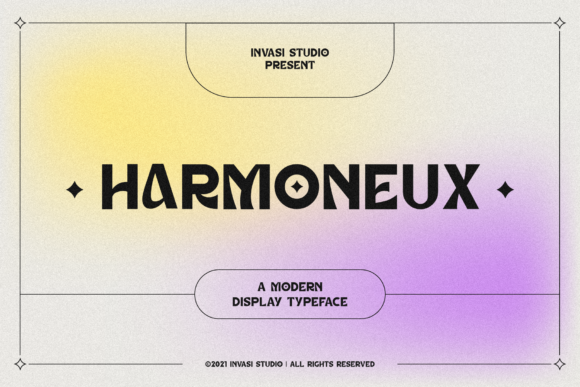
You know that feeling when you’re staring at a blank page, trying to bring your vision to life? The cursor blinks, taunting you, as you search for the perfect font to set the tone for your project. It’s in these moments that the right font can make all the difference. Enter the Harmoneux Font – a cool, modern, and assertive display font that’s about to become your new best friend.
This versatile font is designed to elevate any creation, whether you’re working on a bold marketing campaign, a sleek website, or a captivating poster. The Harmoneux Font has the power to convey confidence, creativity, and style, making it a valuable asset for designers of all levels. With its sleek lines and modern feel, it’s sure to take your projects to the next level.
Harmoneux Font Key Features
- Character Set: This font includes a comprehensive character set, covering Latin, Cyrillic, and Greek alphabets, as well as a wide range of punctuation and symbol characters.
- Unique Characteristics: Harmoneux Font features a unique blend of modern and classic elements, with elegant lines, subtle flair, and a touch of sophistication, making it ideal for use in high-end design projects.
- Font Styles: This font family includes multiple font styles, including Regular, Italic, Bold, and Bold Italic, offering users a range of options for creating visually appealing and professional-looking text.
- Scalability: Harmoneux Font is designed to be highly scalable, ensuring that it remains clear and legible even at small font sizes, making it perfect for use in digital applications and mobile devices.
Harmoneux Font Review
I recently had the chance to work with the Harmoneux font, and I must say, it’s a unique and interesting addition to my design toolkit. Here are some of my thoughts.
- ✨ Elegant and sophisticated feel – Harmoneux has a refined, high-end look that makes it perfect for luxury brands or high-end publications.
- ✨ Excellent legibility – Despite its elegant feel, Harmoneux is still very readable, even at smaller font sizes.
- ✨ Stylish italics – The italics in Harmoneux are particularly well-designed, adding to the font’s overall sophistication.
- ⚠️ Limited character set – Harmoneux is a relatively new font, and its character set is still a bit limited compared to more established fonts.
- ⚠️ Not ideal for body text – While Harmoneux is great for headlines and titles, it’s not the best choice for body text due to its limited character set and somewhat formal feel.
Overall, I think Harmoneux is a great addition to any designer’s toolkit, but it’s not a replacement for more versatile fonts. It’s perfect for making a statement with headlines and titles, but for body text, I’d recommend something more practical. With its elegant feel and stylish italics, Harmoneux is sure to add a touch of sophistication to any design project.
For optimal results, use Harmoneux Font in headings and titles to create visual hierarchy. Experiment with different font sizes and colors to create contrast and emphasis. Avoid using Harmoneux Font in large blocks of text, as it can be overwhelming.
Harmoneux Font is ideal for creative projects, such as branding, packaging, and advertising. It’s also suitable for digital projects, like websites and social media graphics, where a modern and elegant look is desired.